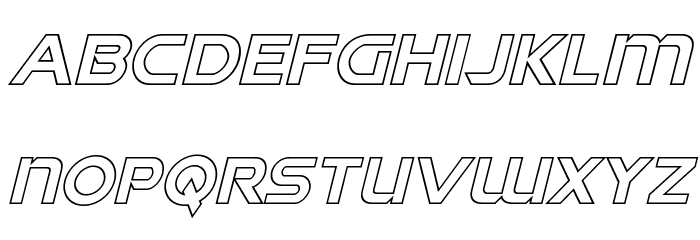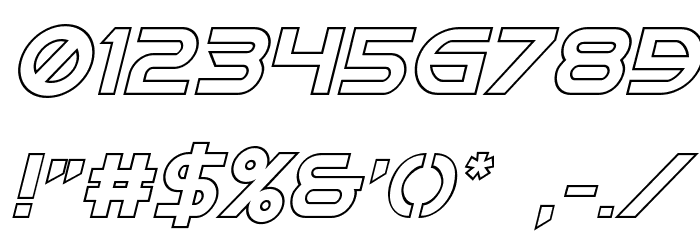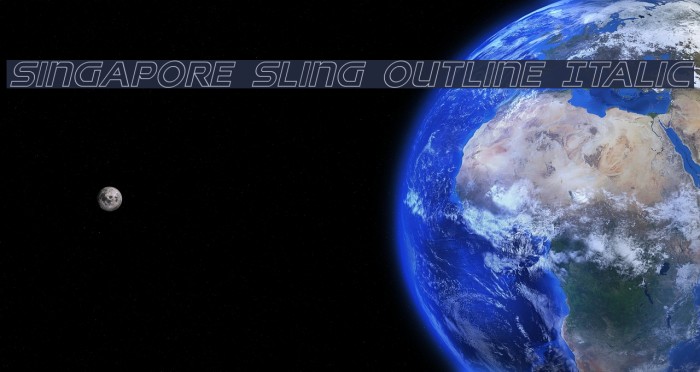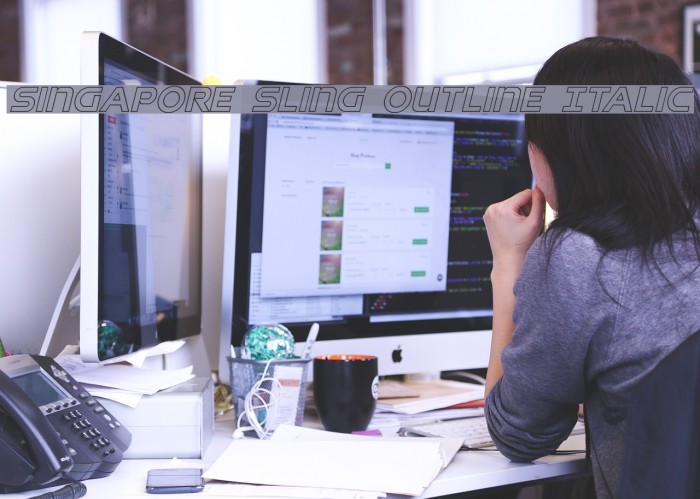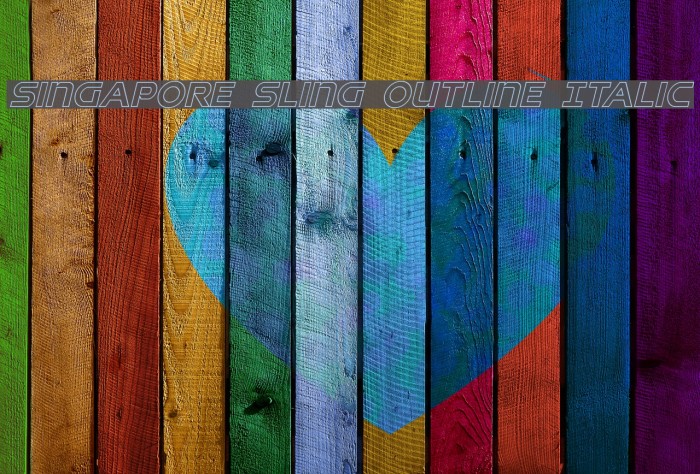
Singapore Sling Outline Italic Font
This font features a modern, outlined style with a distinct italic slant, giving it a dynamic and forward-moving appearance. The uppercase and lowercase letters maintain a consistent geometric structure, with clean lines and sharp angles. The numerals and special characters follow the same outlined and italicized design, ensuring uniformity across all characters. The font's open and airy design makes it suitable for creative and eye-catching projects, while the italic slant adds a sense of motion and energy.
A modern, outlined italic font with geometric shapes and sharp angles.
- Proposed Projects: Ideal for branding, posters, and headlines where a modern and dynamic look is desired.